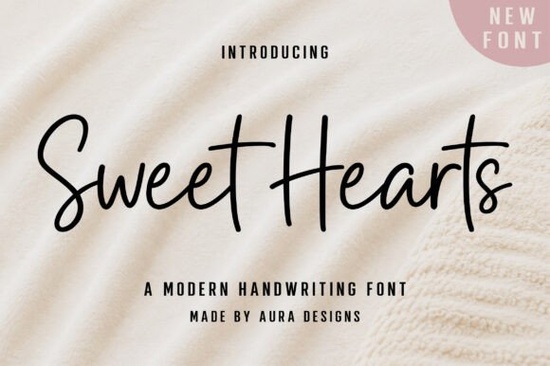
If you design invitations, brand packaging, or craft personalized gifts, finding a handwritten font that feels both polished and warm can take hours. Sweet Hearts Font is a modern script that hits that balance. It has a clean, elegant flow without the messy edges that make some handwritten fonts hard to read at smaller sizes. The letters connect smoothly and keep a consistent baseline, so it works for everything from wedding signage to everyday scrapbook titles.
What Makes Sweet Hearts Font a Favorite for Crafters?
This isn’t a rough, brush-pen style or an overly formal calligraphy font. It sits in a comfortable middle. The strokes are thin but not fragile, with a gentle bounce that feels handwritten rather than mechanical. You’ll notice open counters in letters like “a” and “e”, which helps keep the text airy even when you set a full quote. The uppercase letters have a slightly taller x-height, making them pair nicely with simple sans-serif fonts for two-line layouts.
Crafters often reach for it because it adds personality without stealing the spotlight from a photo or graphic. If you sell print-on-demand mugs or tote bags, phrases set in Sweet Hearts Font look like they were lettered by hand, not typed out. That subtle difference can make a product feel more intentional and less generic.
What Can You Design with This Font?
The short answer is: almost anything that needs a personal touch. Here are some common uses:
- Wedding suites: invitation main text, envelope addressing, table numbers, and favor tags.
- Branding: logos for bakeries, boutiques, beauty salons, or coaching businesses where approachability matters.
- Social media: quote posts, story templates, and Pinterest pins that need a soft, romantic look.
- Apparel and accessories: t-shirts, sweatshirts, tote bags, and cap designs that center on short, sweet messages.
- Home decor: framed signs, cushion covers, and wall decals cut with a Cricut or Silhouette machine.
Because the font stays readable at around 10pt and above, it also works for short product descriptions on stickers or product labels if you keep the line length short.
How Does It Work with Cutting Machines?
Does Sweet Hearts Font Include Extras?
How It Stacks Up Next to Other Script Fonts
Choosing a handwritten font often comes down to the mood you want. If you’ve browsed script fonts before, you’ve probably seen a wide spectrum from super formal to casual and bouncy. Sweet Hearts leans elegant but not stiff. For comparison, a quirky trio style might give you more playful, varied letterforms, while baby-soft lettering feels even lighter and more rounded. On the other hand, if you’re planning a birthday bash or a lively event, something with more bounce like a lively party script could match that energy better. For a signature-style look with longer swashes, a darling signature style offers a different take. And if you want a bit more texture and an inky, brush-pen feel, you might try a font like a swearly brushed script. Sweet Hearts works best when you need a clean, warm tone without too many frills.
Tips for Getting the Most Out of This Font
A few small adjustments can make your designs look more professional:
- Adjust letter spacing: For all-caps text, increase tracking by 50–100 units. For lowercase, leave it at default or tighten slightly.
- Pair with contrast: Set headings in Sweet Hearts and body text in a light sans-serif like Montserrat Light or Lato. The contrast keeps layouts from feeling cluttered.
- Watch the baseline: If you’re aligning text to a curve or path, use the built-in baseline shift to keep the script flowing evenly.
- Test on your material: For fabric or dark backgrounds, bump the font weight up by adding a thin stroke or choosing a bold variant if available.
If you’ve been looking for a handwritten font that doesn’t overwhelm a design but still feels personal, Sweet Hearts Font is worth a closer look. Start with a short phrase, test it on your favourite mockup, and see if it brings that gentle touch your project needs.